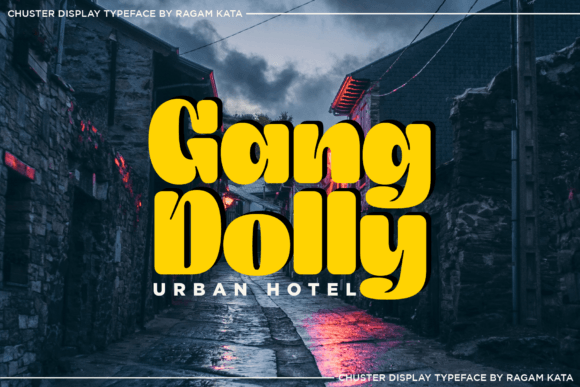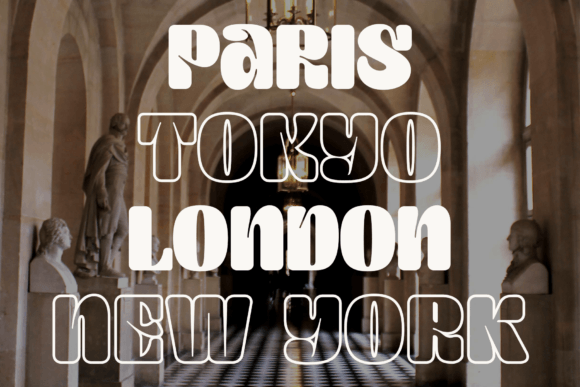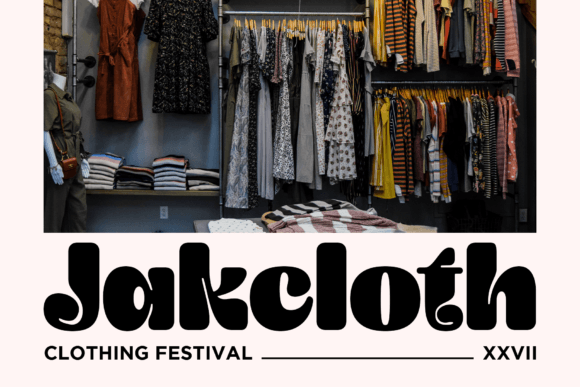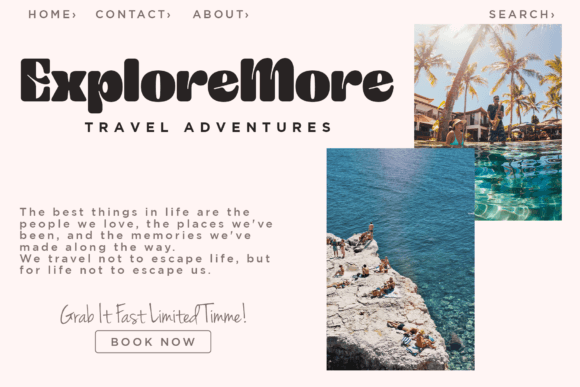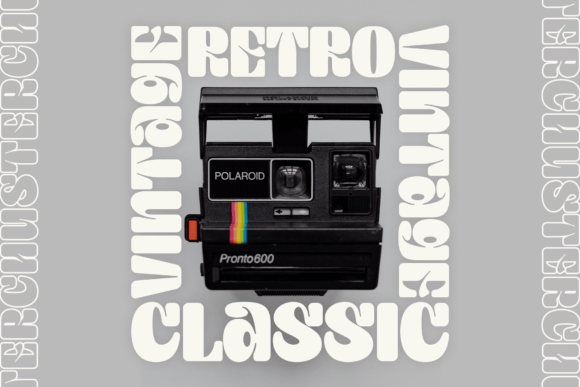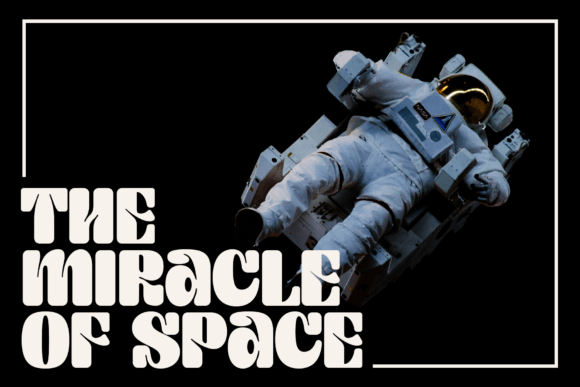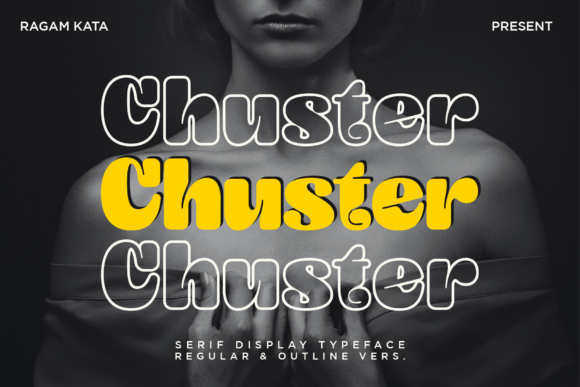
Introducing Chuster Font: The Ultimate Retro Serif Font for Designers
In the world of typography, fonts play a crucial role in conveying the tone and aesthetic of a design project. For designers and crafters looking to add a touch of vintage charm to their work, Chuster Font is an excellent choice. This serif font is designed with a retro theme in mind, boasting a bold and attractive appearance that’s sure to make your designs stand out.
The Retro Inspiration Behind Chuster
Chuster Font is inspired by the classic designs of the past, with a strong emphasis on bold lines, sturdy letterforms, and a distinctive retro flair. The font’s design is carefully crafted to evoke a sense of nostalgia, making it perfect for design projects that aim to convey a vintage or classic feel. Whether you’re working on a logo, brand identity, or marketing materials, Chuster Font is the ideal choice for adding a touch of timeless elegance to your designs.
Key Features of Chuster Font
So, what makes Chuster Font so special? Here are some of its key features:
• Retro aesthetic: Chuster Font is designed with a retro theme in mind, making it perfect for designers looking to add a vintage touch to their work.
• Bold and attractive: The font’s bold and sturdy letterforms make it perfect for headlines, titles, and other design elements that need to grab attention.
• Serif font: As a serif font, Chuster adds a touch of sophistication and elegance to any design project.
• Versatile: Chuster Font is suitable for a wide range of design projects, including logos, brand identity, posters, brochures, magazines, books, and more.
Why Choose Chuster Font for Your Design Projects?
With so many fonts available, why should you choose Chuster Font for your design projects? Here are just a few reasons:
• Adds a vintage touch: Chuster Font’s retro aesthetic adds a unique and interesting element to your designs, setting them apart from more modern fonts.
• Eye-catching: The font’s bold and attractive appearance makes it perfect for grabbing attention and drawing the viewer’s eye.
• Easy to read: Despite its bold appearance, Chuster Font is easy to read, making it suitable for body text as well as headlines.
• Customizable: As a digital font, Chuster can be easily customized to suit your design needs, including adjusting font size, color, and style.
Design Project Ideas Using Chuster Font
So, what kind of design projects can you use Chuster Font for? Here are some ideas to get you started:
• Logos and brand identity: Use Chuster Font to create a bold and memorable logo that sets your brand apart.
• Posters and flyers: Add a touch of vintage charm to your posters and flyers with Chuster Font’s retro aesthetic.
• Brochures and magazines: Use Chuster Font to add a touch of sophistication and elegance to your brochures and magazines.
• Books and e-books: Chuster Font is perfect for book titles, headings, and other design elements that need to make a bold impression.
In conclusion, Chuster Font is an excellent choice for designers and crafters looking to add a touch of vintage charm to their work. With its bold and attractive appearance, retro aesthetic, and versatility, Chuster Font is perfect for a wide range of design projects. Whether you’re working on a logo, brand identity, or marketing materials, Chuster Font is sure to make your designs stand out. So why not give Chuster Font a try today and see the difference it can make in your designs?